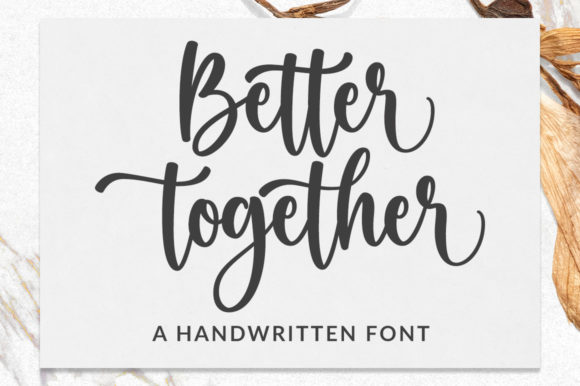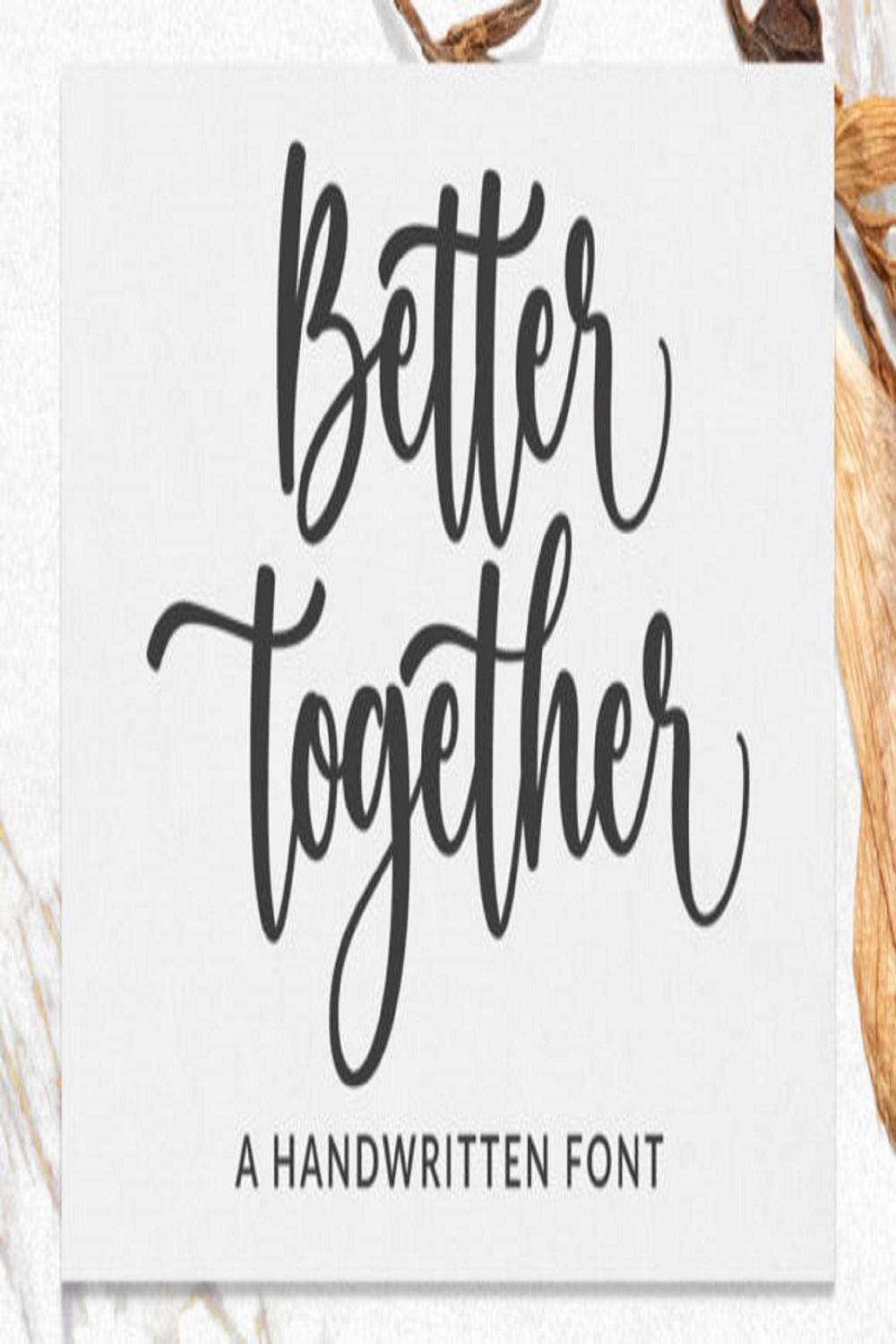
Better Together is a lovely and timeless handwritten font. It is the best choice for creating eye catching logos, branding and quotes. Every letter has a unique and beautiful touch, which will make your design come alive!